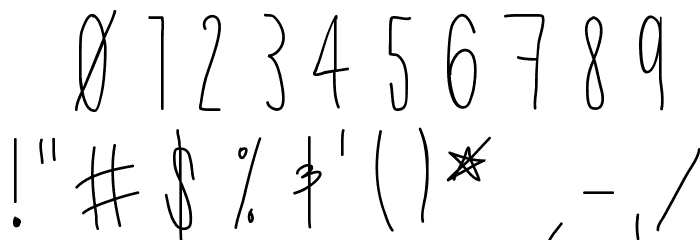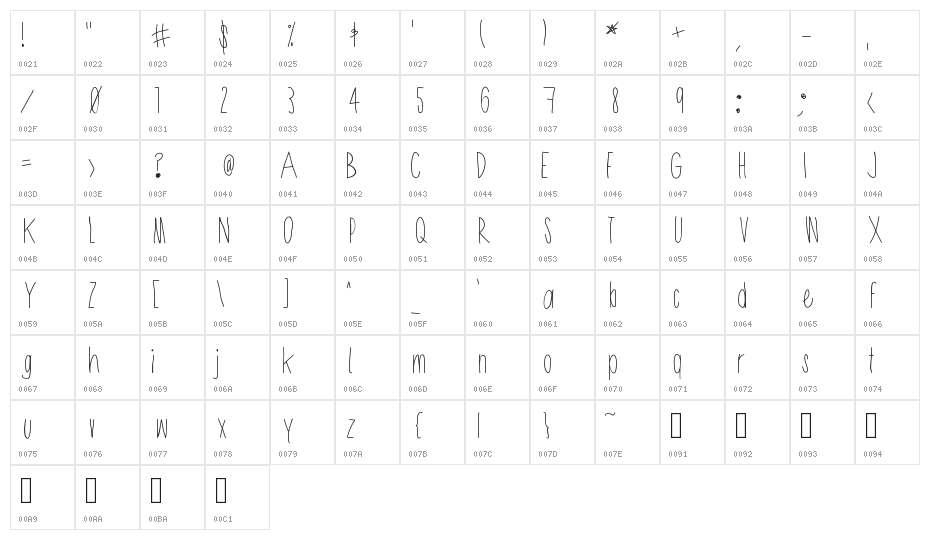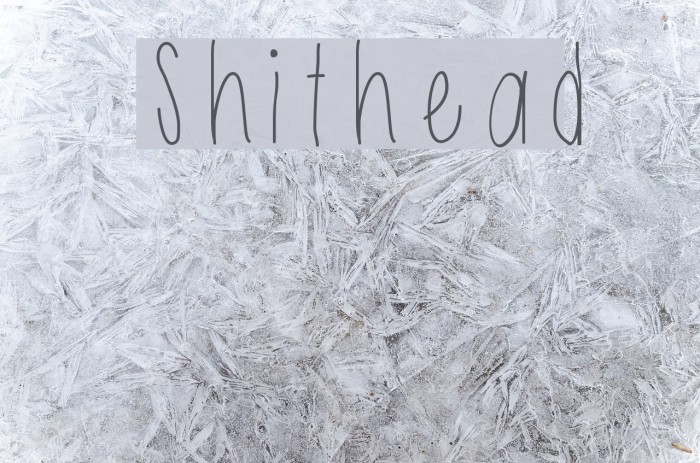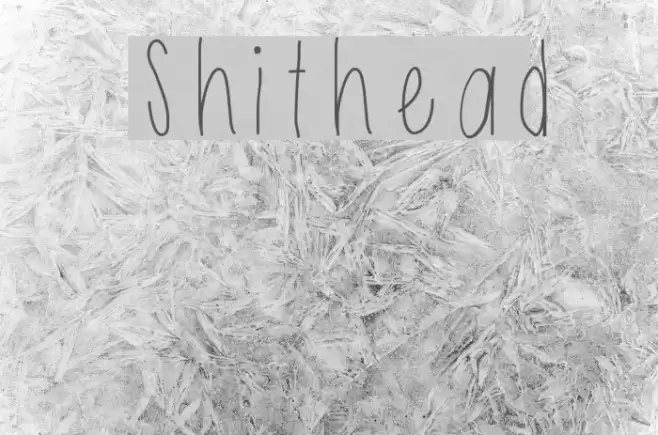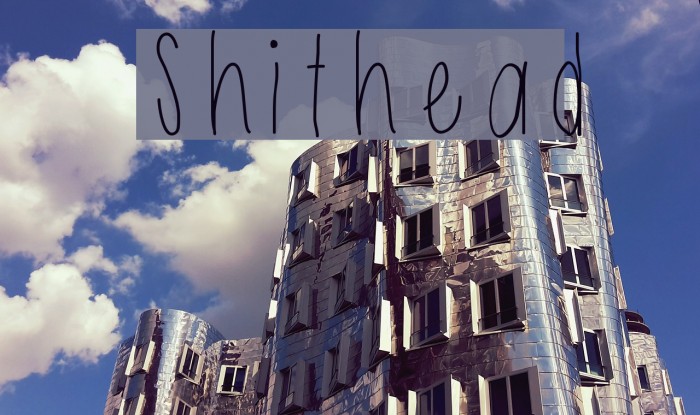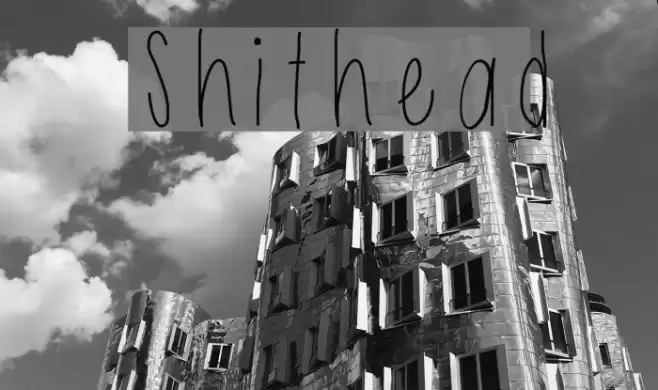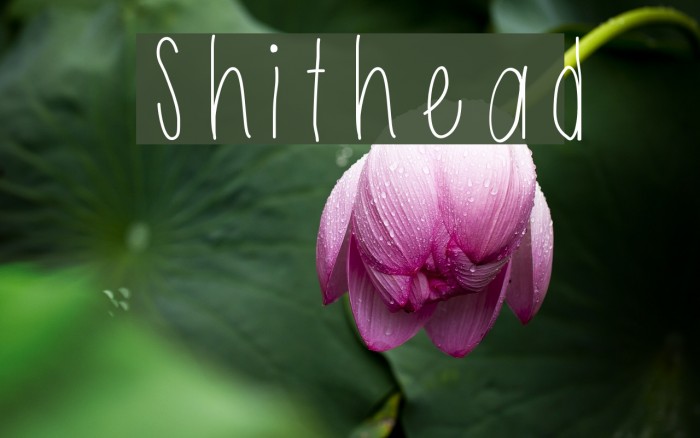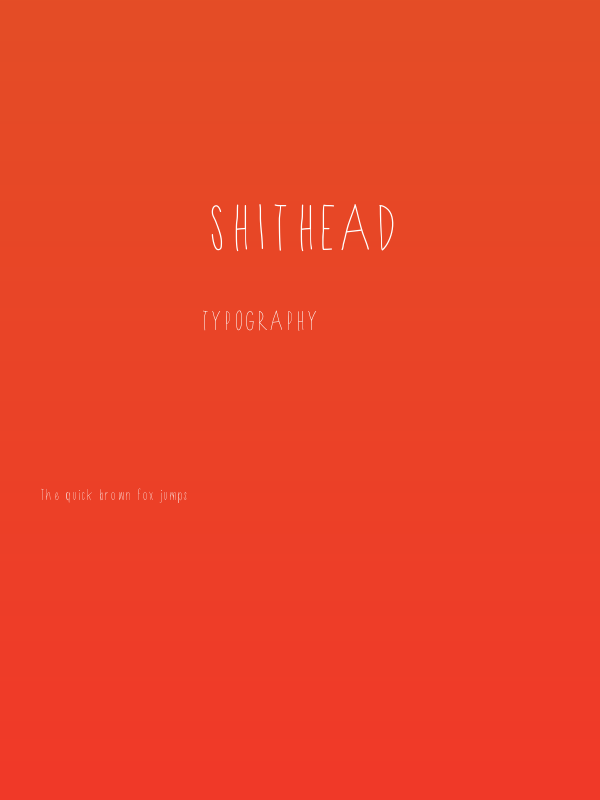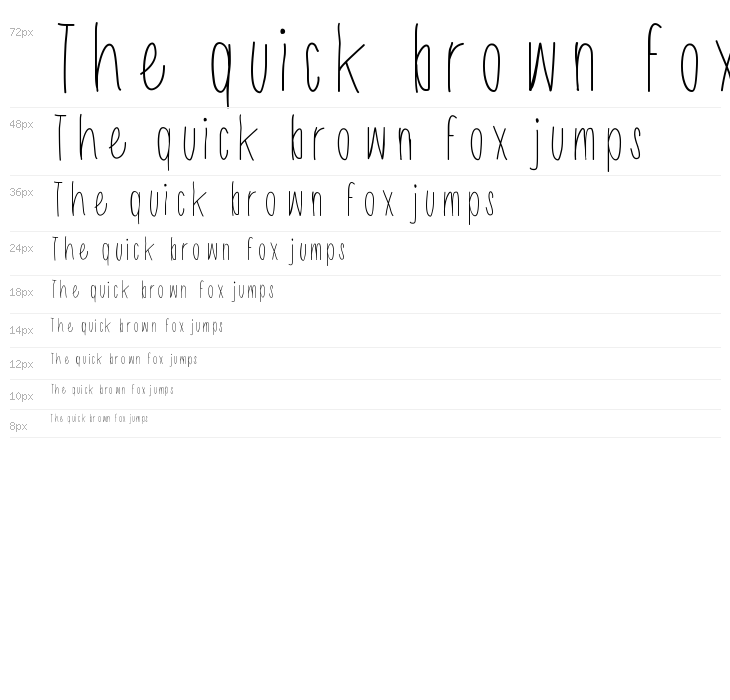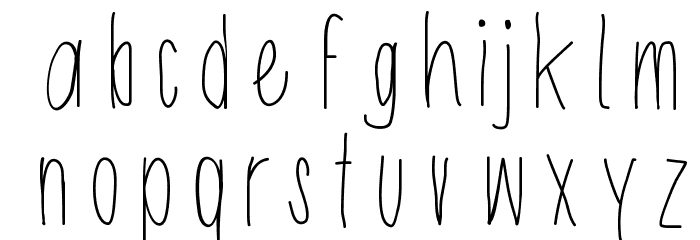
Shithead Font
Shithead Description
This font features a playful, handwritten style with tall, narrow characters. The strokes are thin and consistent, giving it a light and airy appearance. The uppercase letters are slightly taller than the lowercase, maintaining a uniform height across the alphabet. The numbers and special characters follow the same whimsical style, adding a touch of personality to the overall design. This font's informal and casual nature makes it ideal for creative projects that require a personal touch.
| Use Case | Headlines, Creative projects, Informal communications |
| Proposed Projects | Great for greeting cards, children's books, personal blogs, and creative branding. |